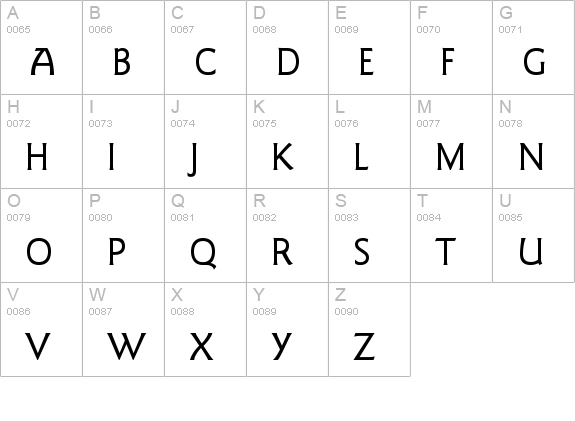
GoudySansEF-Medium is a balanced, medium-weight variant in the GoudySansEF typeface family \xE2\x80\x94 well suited to sub-headlines, navigation, and balanced editorial work.
GoudySansEF-Medium font is a versatile and elegant typeface that strikes the perfect balance between sophistication and readability. With its clean lines and modern aesthetic, this font is perfect for a wide range of design projects, from branding to editorial design. The medium weight of the font gives it a strong presence on the page without being overpowering. What makes GoudySansEF-Medium font even more appealing is that it is available for free download at FontsMarket.com. This means that you can easily access this high-quality font without any cost, making it a valuable addition to your font library. Whether you are a professional designer or a hobbyist looking to elevate your projects, GoudySansEF-Medium font is a fantastic choice that won't break the bank. Download it today and see for yourself the impact it can have on your designs.